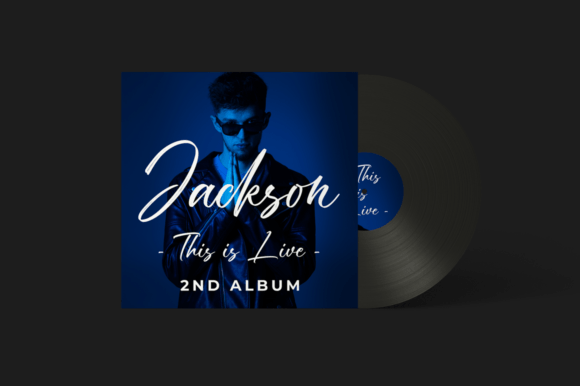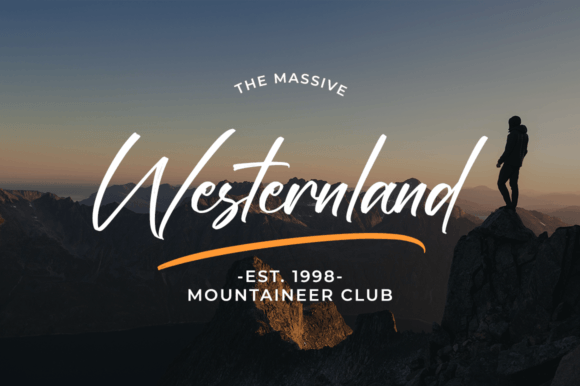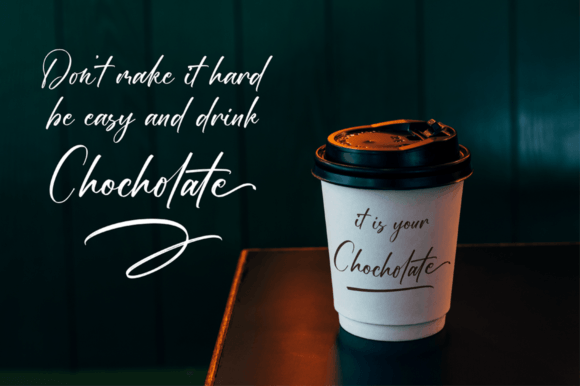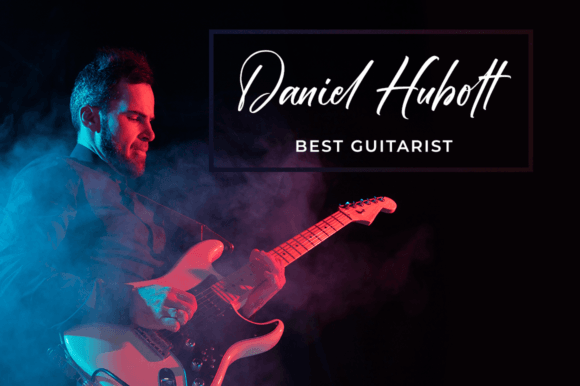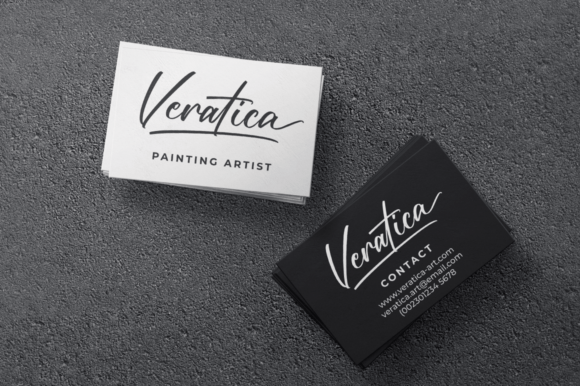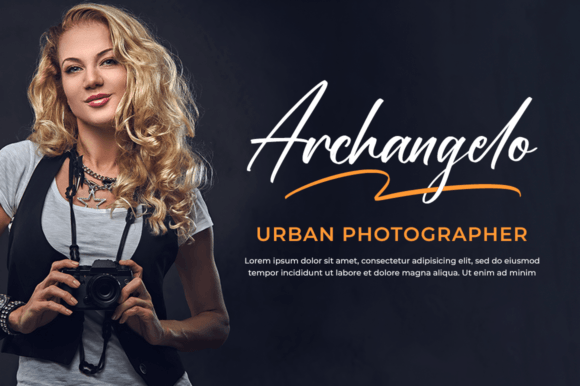
The Perfect Addition to Your Design Arsenal: Archipelago Font
There’s nothing quite like the feeling of being completely in the zone, surrounded by creative chaos and yet somehow managing to craft something truly beautiful. For designers, this moment is often a result of having the right tools at their disposal. And that’s where the Archipelago Font comes in – a lovely and delicate script font that exudes elegance and class, perfect for adding a touch of sophistication to your designs.
This stunning font is not just a pretty face, however. With its PUA encoding, you can access all of the glyphs and swashes with ease, giving you the freedom to experiment and push the boundaries of your creativity. Whether you’re working on a high-end branding project or a romantic wedding invitation, the Archipelago Font is a valuable addition to your design arsenal.
Designer Review: Archipelago Font
Overall, I was quite impressed with the Archipelago font, which has a unique charm that makes it stand out in digital design. ✨
The font’s eclectic and vintage feel makes it perfect for adding a touch of personality to a website, magazine, or social media platform. Its diverse set of characters and glyphs also offer a wide range of creative possibilities. ✨
Here are some of the font’s notable strengths:
- Distinctive character shapes that add visual interest to text
- Perfect for creative and artistic projects
- Well-suited for titles, headings, and other display text
However, the font is not without its limitations. ⚠️
Some of the font’s notable weaknesses include:
- Can be difficult to read in large blocks of text due to its eclectic design
- Not suitable for formal or professional projects
- May not be compatible with all operating systems or devices
Overall, I think the Archipelago font is a great choice for designers looking to add some personality and whimsy to their projects. While it may not be suitable for all types of projects, its unique charm and creative possibilities make it a valuable addition to any designer’s toolkit.
Tips for Getting the Most Out of Archipelago Font
Archipelago Font is a versatile font that works well for a variety of designs. To get the most out of it, consider the following tips:
– Use Archipelago Font for headings and titles to add a touch of elegance to your design.
– Pair Archipelago Font with other fonts to create a unique and visually appealing combination.
– Experiment with different font sizes and colors to create a cohesive and professional look.
Archipelago Font is commonly used for:
– Travel and adventure-related designs
– Luxury and high-end product designs